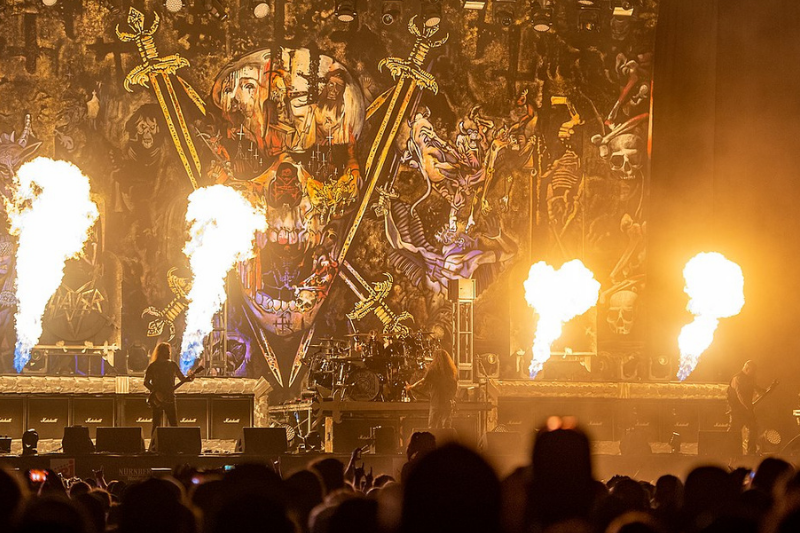
Slayer Font Generator
Channel the raw power of thrash metal with our free Slayer font generator β€” create bold, aggressive text and download or copy it instantly.
About the Slayer Font Generator
Slayer's logo is one of the most recognizable in heavy metal history β€” a jagged, angular typeface with sharp points and an unmistakable aggressive energy. Born from the Los Angeles thrash metal scene in the early 1980s, the Slayer aesthetic has inspired generations of metal band logos and extreme graphic design. That sharp, combative lettering says everything without needing a single note of music.
• Metal band logo concepts and demo covers
• Concert flyers and event poster design
• Gaming username and clan tag graphics
• Metal fan art and tribute posters
• T-shirt and merchandise mockups